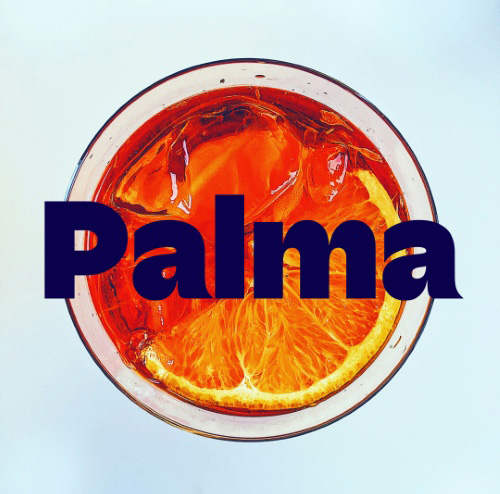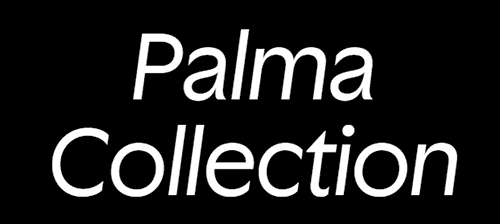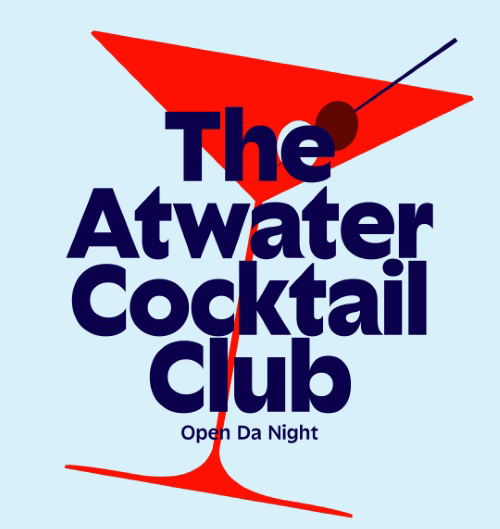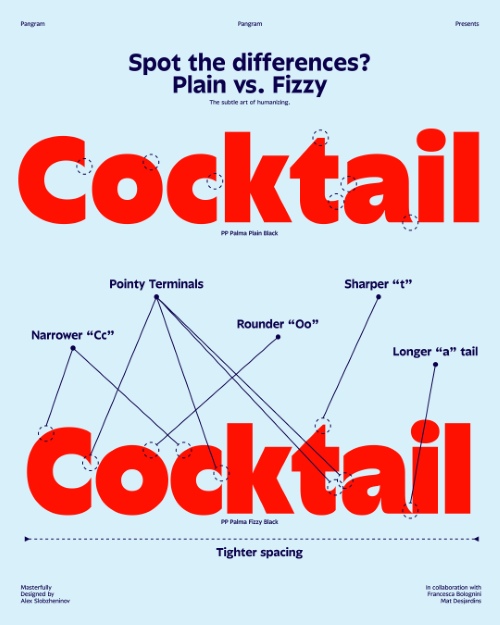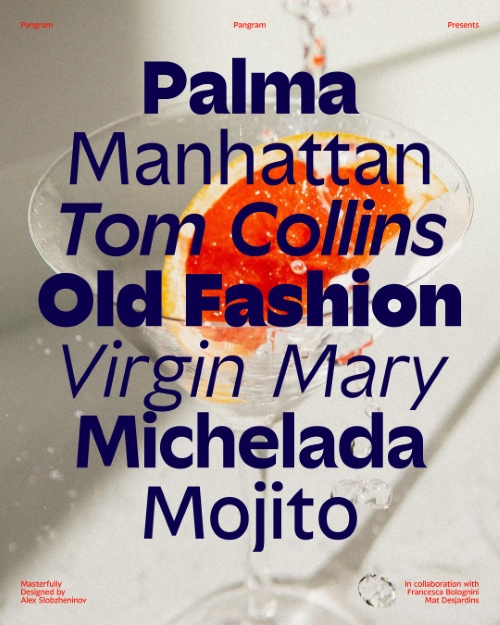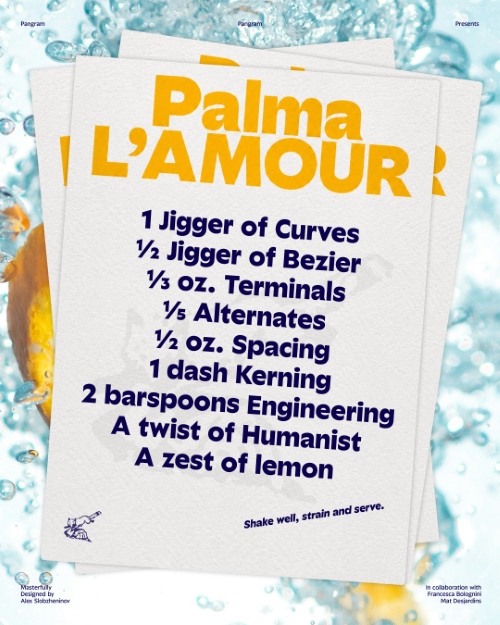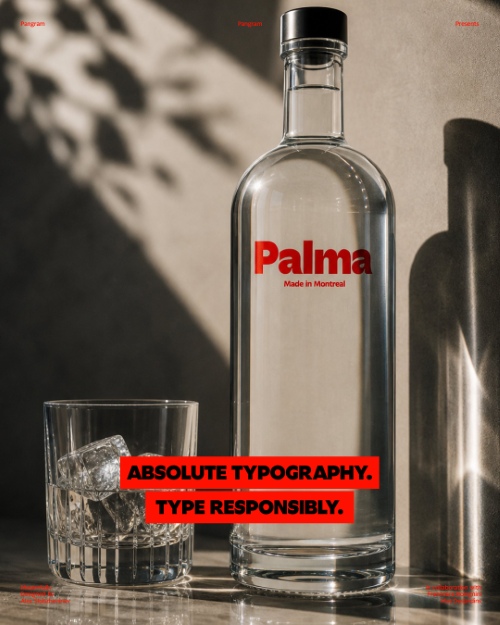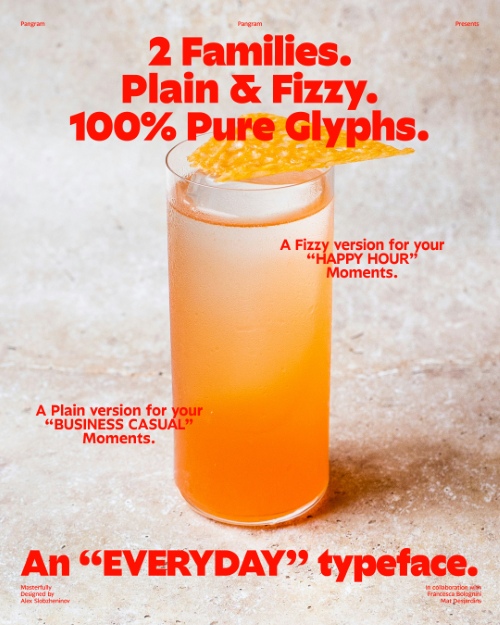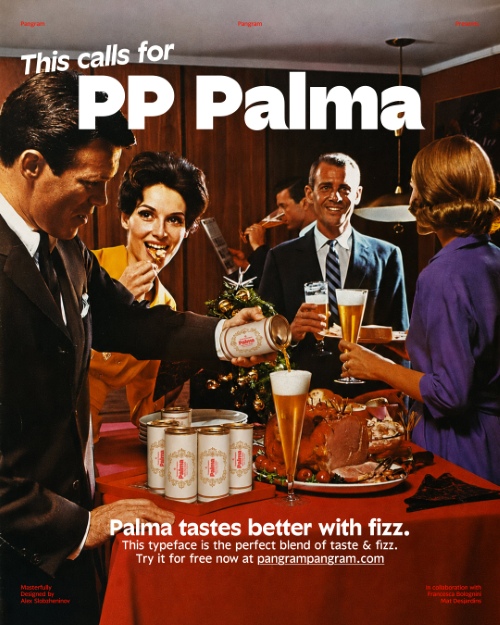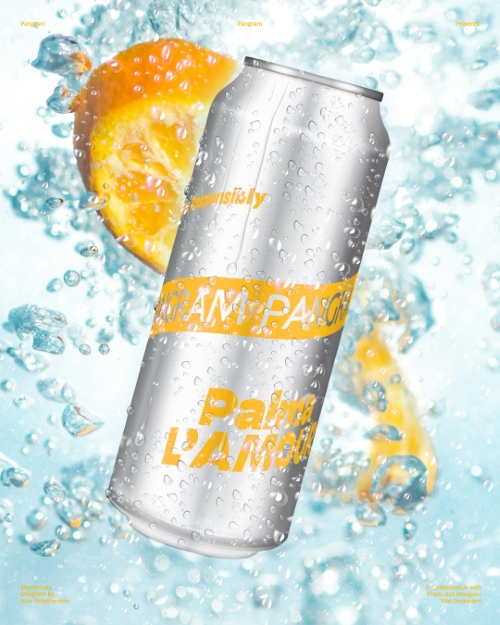
Palma Family - 2 Variable Fonts
- PP Palma is a spritzy sans family of a dual geo-humanist nature. Designed for versatility, the typeface spans across the two genres, combining the best of both worlds. Palma is loosely inspired by the giants like Antique Olive, Johnston and Avenir, but treats the references lightheartedly, going for a different route with a flair. One part of the family is toned-down and humanist, featuring open shapes, natural letterforms and balanced proportions, intended for subtle roles when reading comfort and legibility are crucial. The other subfamily, Fizzy, cranks up the flavor all the way up, turning the shapes geometric, tightening spacing and making details more crisp and accentuated, perfect for juicy large-size uses.